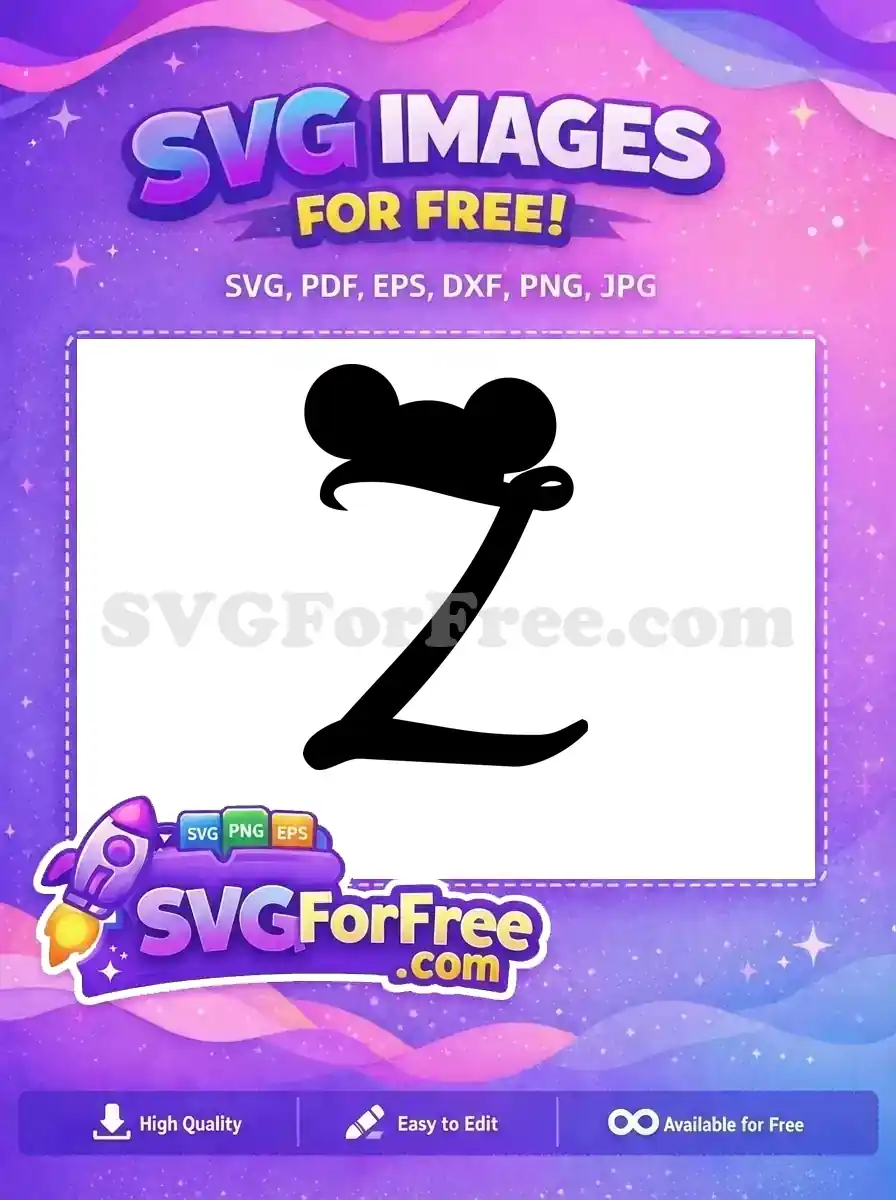
A stylized capital letter ‘Z’ in a solid black, handwritten-style script font. A free-to-use vector file.
Free Black Mickey Font Free Letter Z Alphabet Free SVG